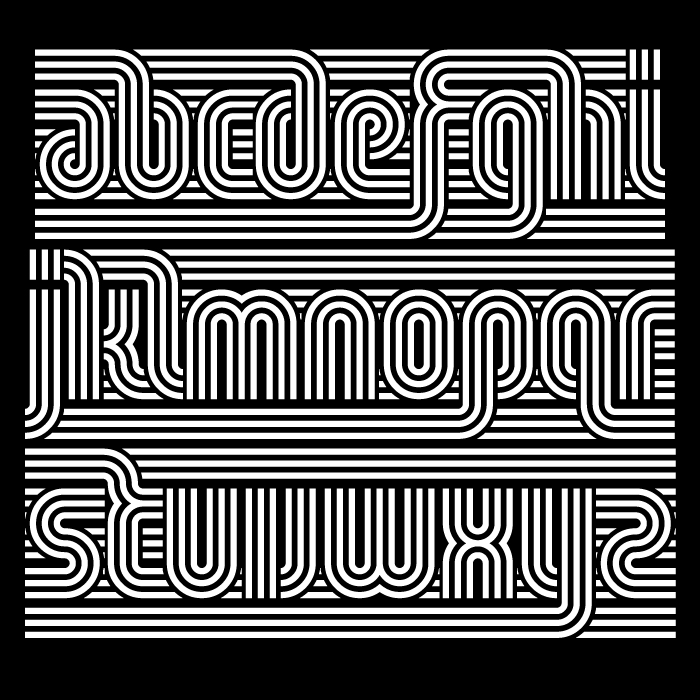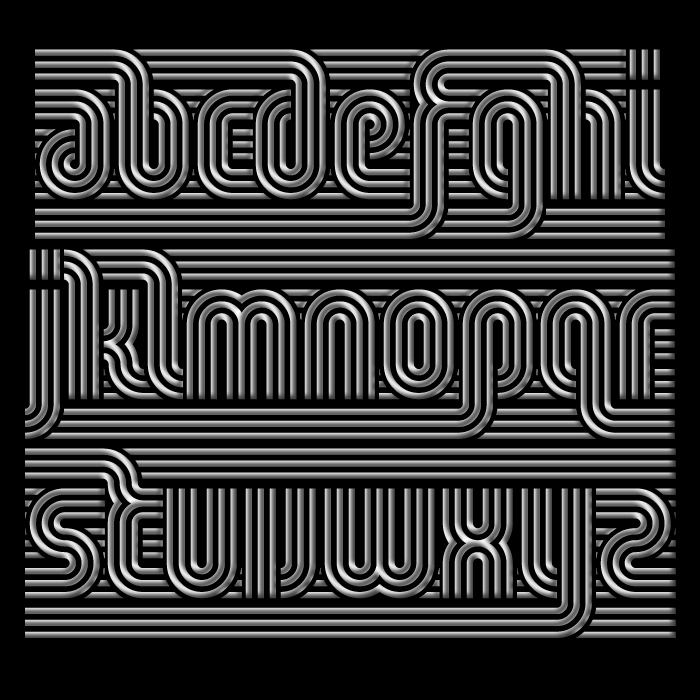
Velodrome
Congratulations! FontStruct Staff have deemed your FontStruction worthy of special mention. “Velodrome” is now a Top Pick.
Look how good it is when the great tools used by the right person. Beautiful curve-filling shape, man. Finally it's possible to FontStruct :)
WOAH
Great work! (a 3rd sample could add the cast shadows on a gray BG.)
road rage